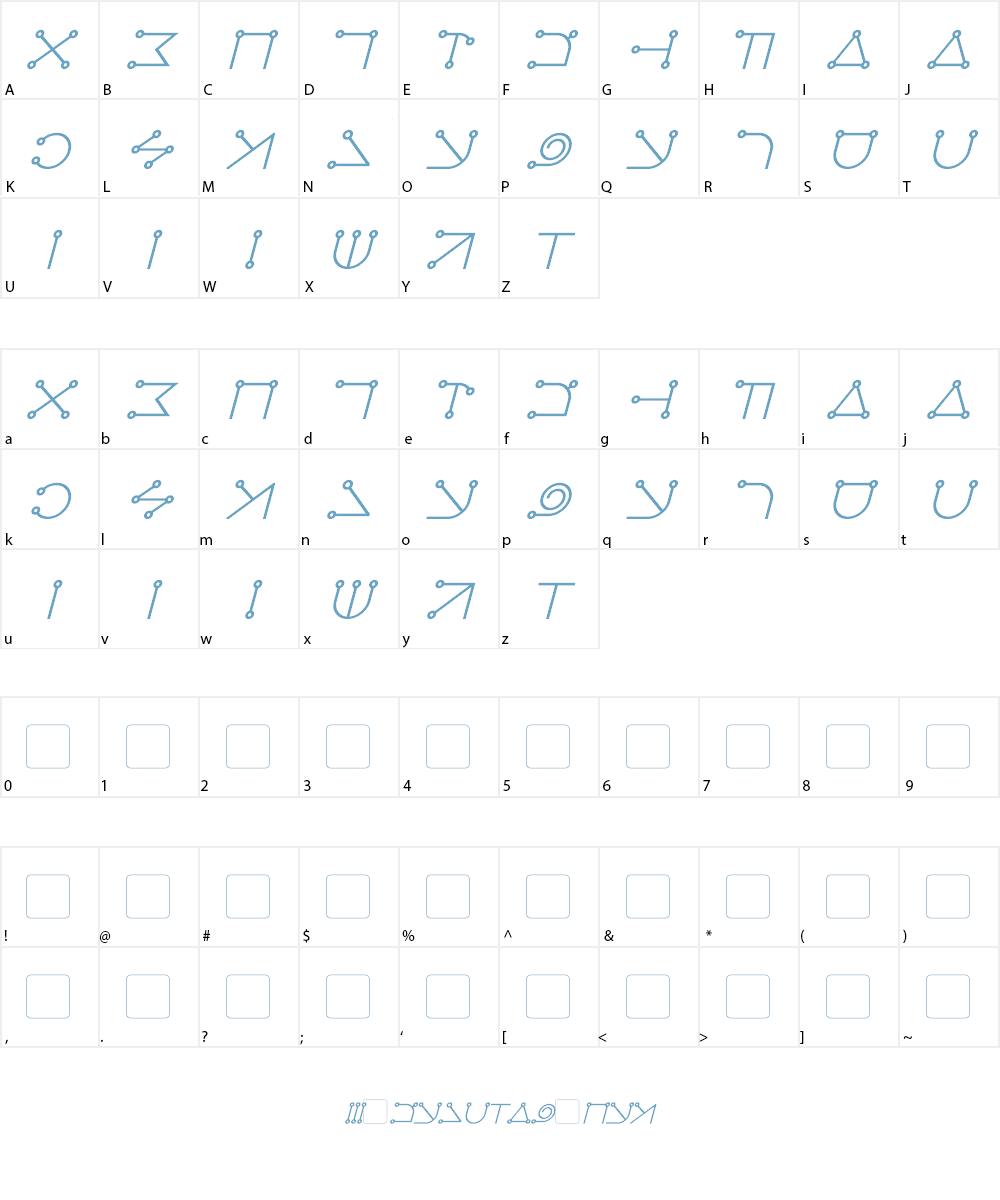
Celestial is based on the angelic and spiritual scripts found in Wizards of the Coast’s Dungeons and Dragons role-playing game and the Forgotten Realms. Includes all ‘canon’ glyphs. Includes regular, bold, italic, and bold-italic weights.